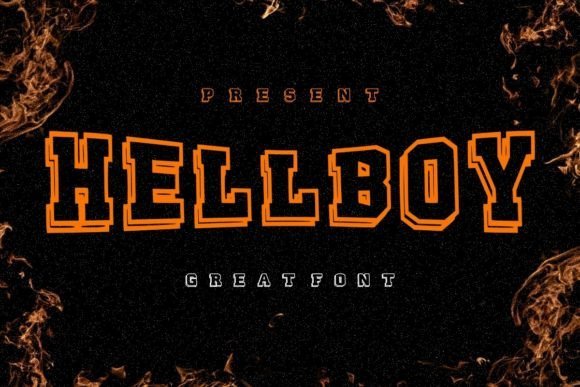
Unleash the Fiery Spirit of Winter with Hellboy Font
As the snowflakes start to fall and the fireplace crackles to life, many of us can’t help but feel the magic of the winter season. And for designers, this is the perfect time to get creative with holiday branding projects, product packaging, and more.
Enter the Hellboy Font, a modern, outline display font that’s tailor-made for capturing the essence of winter and the holidays. With its bold lines and fiery spirit, this font is perfect for any project that needs a little extra oomph. Whether you’re designing a festive t-shirt or a holiday-themed poster, the Hellboy Font is sure to add a touch of excitement and energy to your work.
For designers, the Hellboy Font is a valuable addition to any toolkit, offering a unique and eye-catching way to add some holiday cheer to your designs. So why settle for a boring, generic font when you can unleash the fiery spirit of winter with the Hellboy Font?
Hellboy Font Key Features
- Unique Characteristics: The Hellboy font is known for its bold, gothic, and mystical appearance, with unique letterforms and ornaments.
Hellboy Font Review
Overall, I have mixed feelings about the Hellboy font. It’s a unique and eye-catching choice for a bold, edgy design. ✨
The font’s comic book-inspired aesthetic makes it perfect for projects with a retro or superhero theme. The bold lines and chunky texture add to its energetic feel, which can be great for attention-grabbing headlines or titles. ✨
However, the font’s limited character set and lack of italic or bold variations can be a major limitation for some users. ⚠️ This might require additional font pairing or workarounds to achieve the desired visual effect.
Additionally, the font’s rough texture and bold lines can make it difficult to read in smaller sizes or for extended periods of time. This might not be suitable for body text or large blocks of text. ⚠️
Overall, I think the Hellboy font is a great choice for specific projects or designs where its unique aesthetic can shine. But for more general use, it might not be the best option due to its limitations.
- Unique and eye-catching aesthetic ✨
- Perfect for comic book-inspired or superhero-themed projects ✨
- Limited character set and lack of italic or bold variations ⚠️
- Rough texture and bold lines can make it difficult to read ⚠️
Practical Application Guide for Hellboy Font
Tips for Getting the Most Out of Hellboy Font
Use Hellboy font for bold, graphic titles and headings. Pair it with a sans-serif font for body text to create a striking contrast. Experiment with different font sizes and colors to create a visually appealing design.
Use Hellboy font for comic book-inspired designs, horror-themed projects, or any design that requires a bold, edgy feel. It’s also great for creating attention-grabbing headlines and titles for marketing materials, posters, or social media graphics.